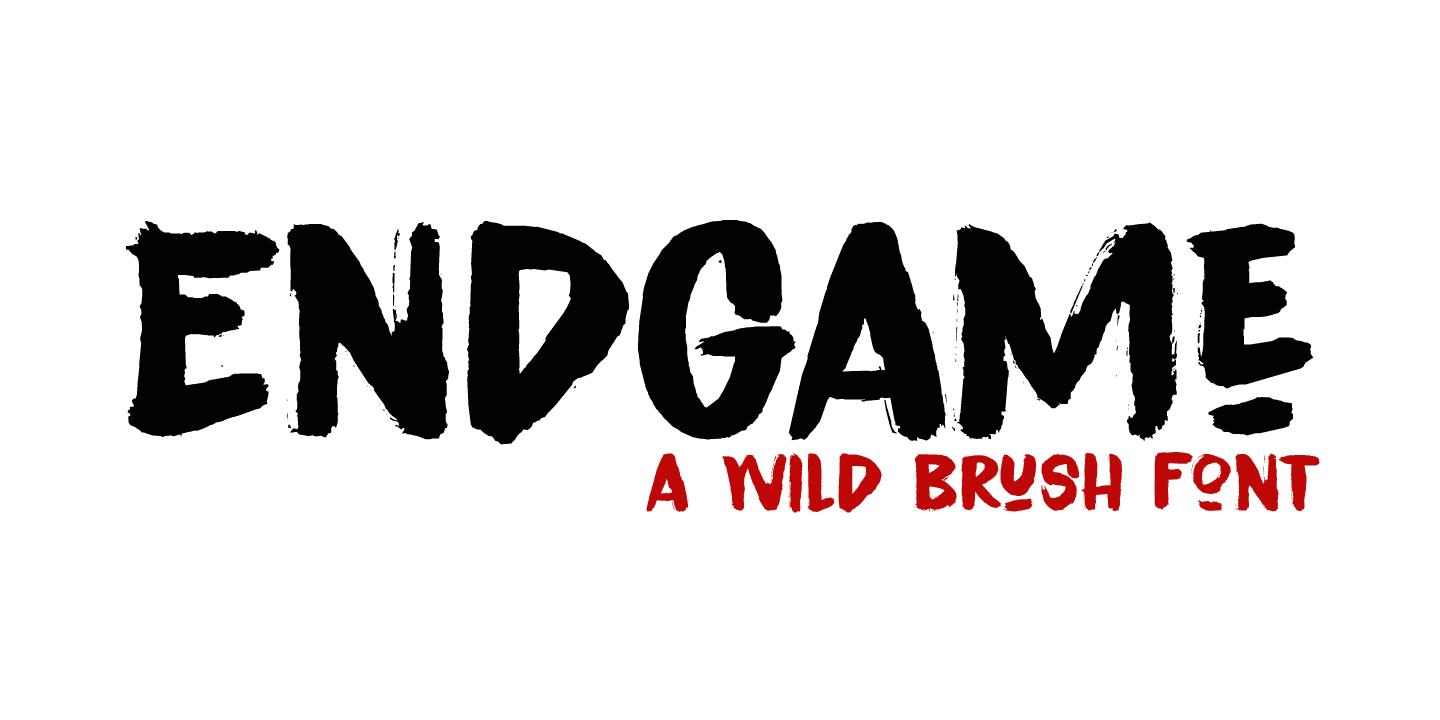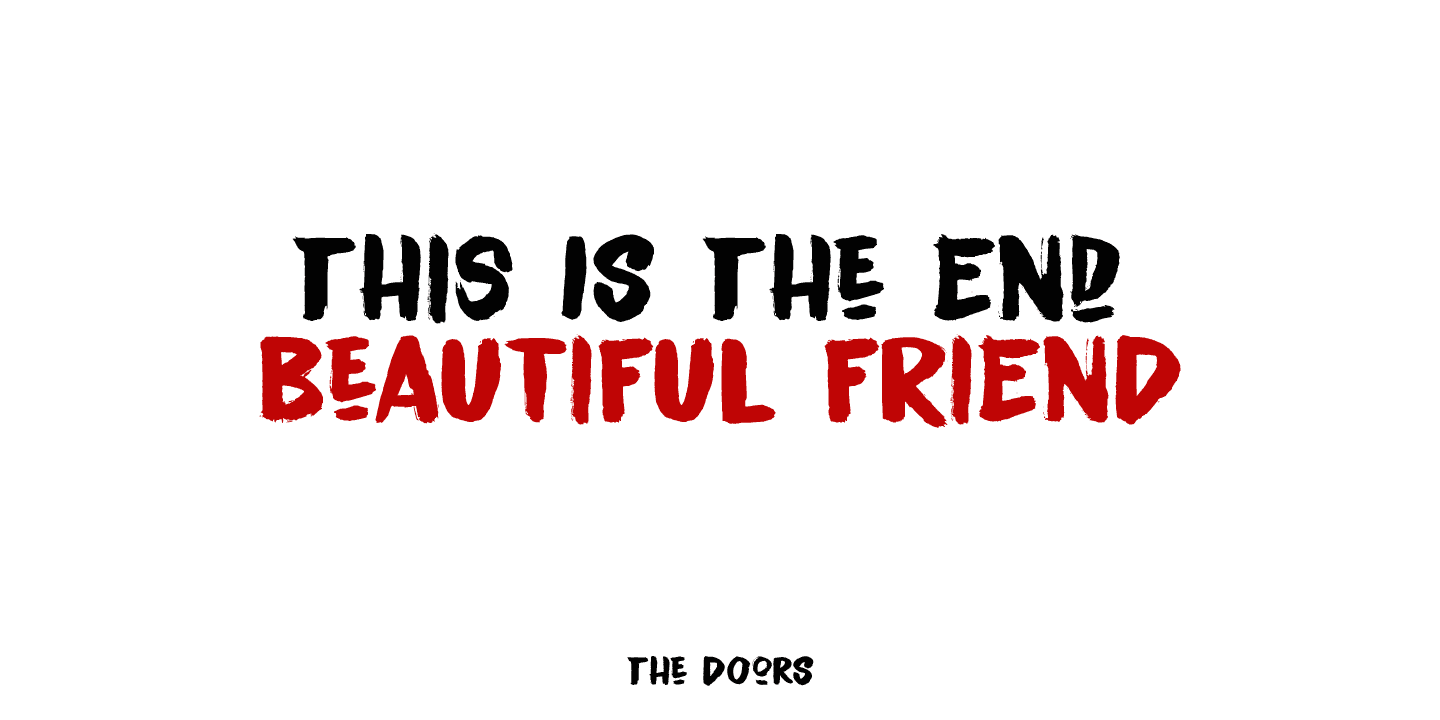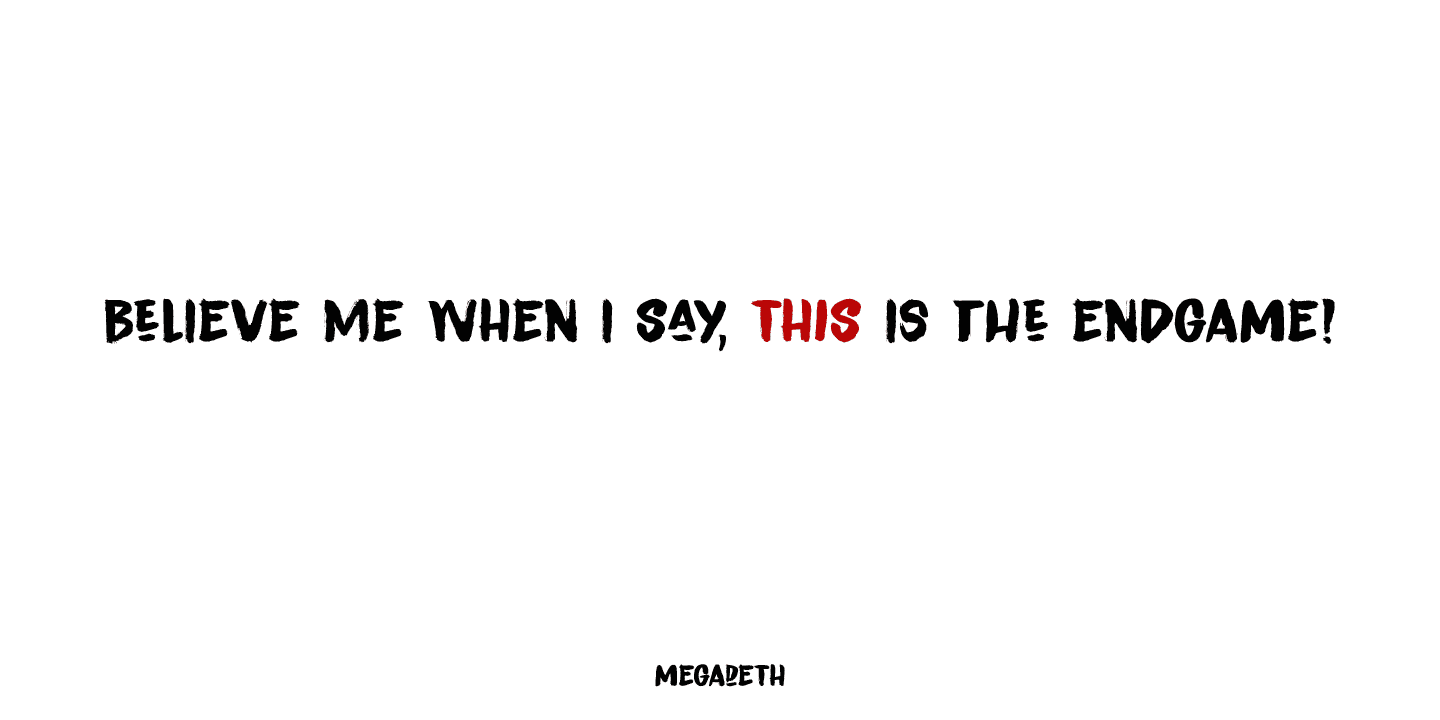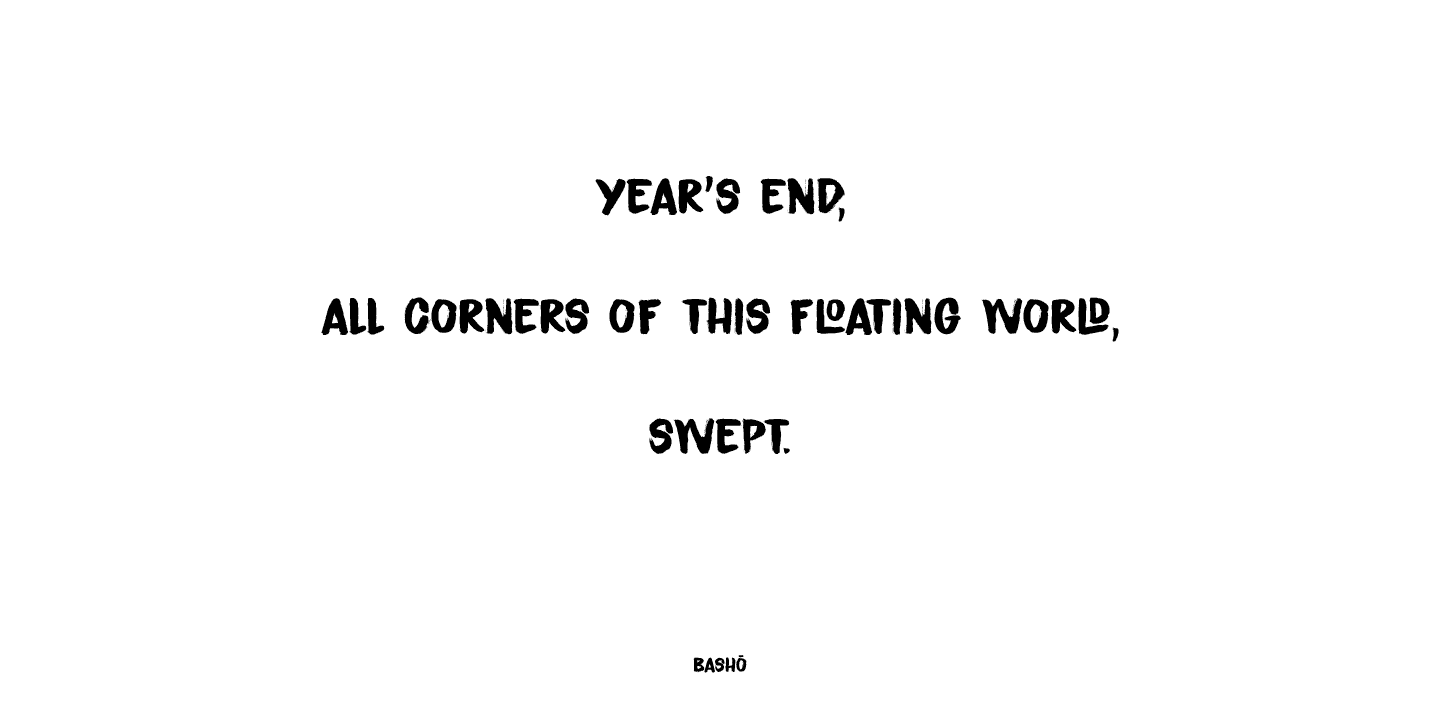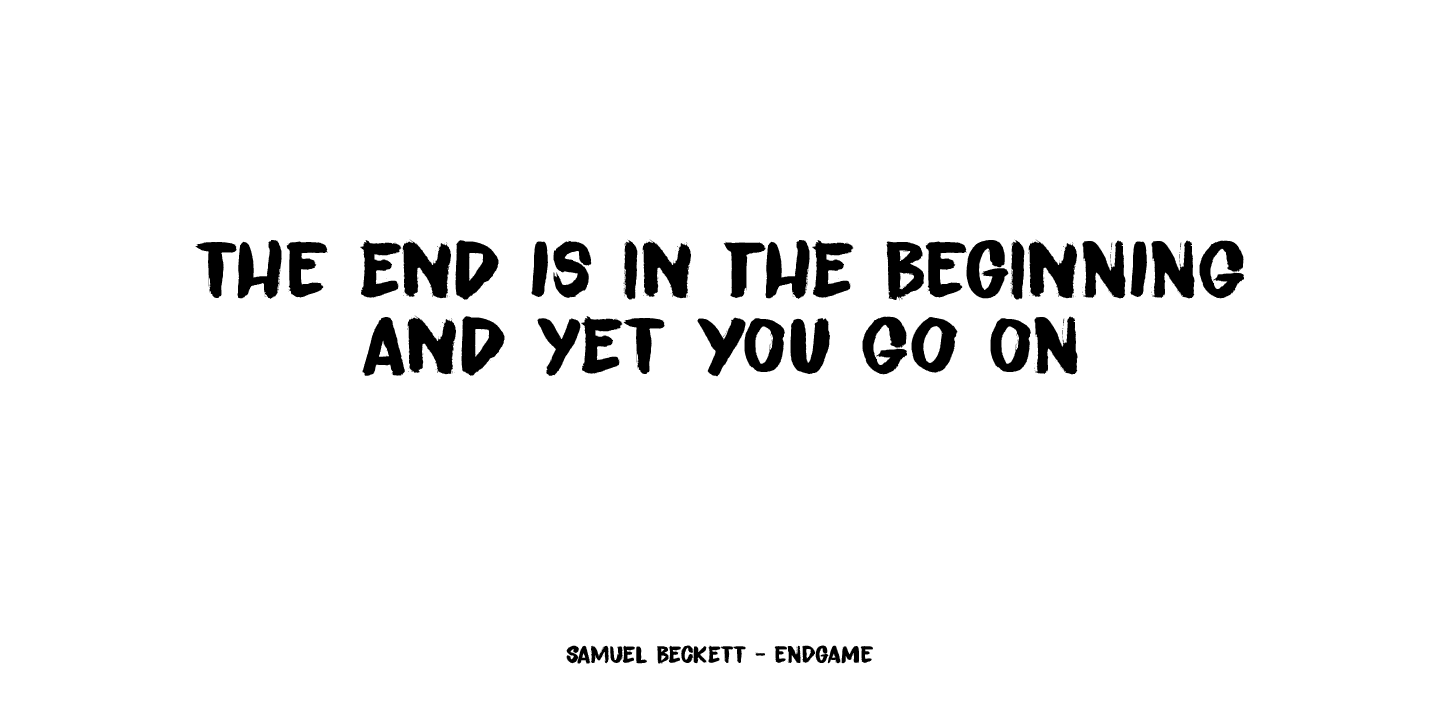
Endgame font was made using a very, VERY bad brush and Chinese ink. I had bought a bunch of brushes some time ago and I discovered that the hairs had been treated with some goo to keep them from sticking out. The goo didn’t really come off, so when I started to draw the glyphs for this font, the brush strokes were kind of wild.
In the end, I really liked it (even though I will never again buy that particular brand of brushes).
Endgame is a wild brush font. Comes with the works: diacritics, ligatures and alternates.